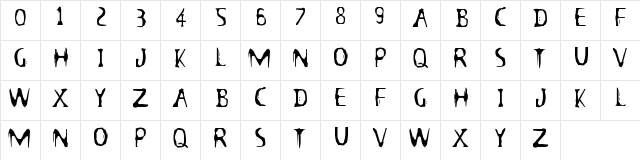
13th Ghostwrite Regular
Design Context for 13th Ghostwrite Typeface
13th Ghostwrite is a composed and adaptable typeface that performs quietly and consistently across a wide range of design contexts.
Pro Tip: Use 13th Ghostwrite in both headline and body roles to test its range before committing to a single application.